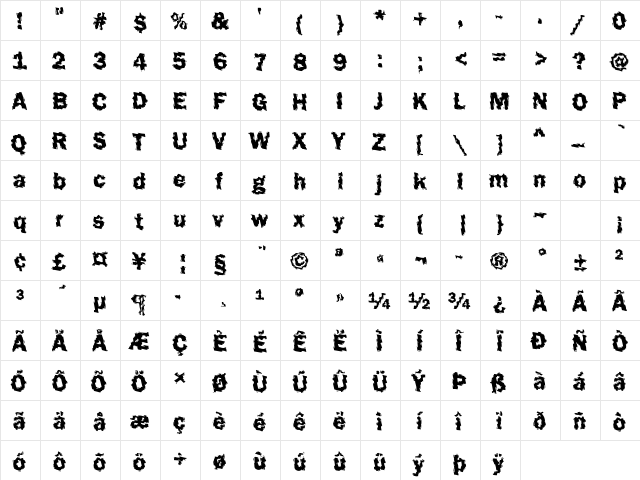
DTCFunkyM44 Regular Font Preview
DTCFunkyM44 Regular
DTCFunkyM44 Regular Font Details
Design Context for DTCFunkyM44 Typeface
DTCFunkyM44 has an approachable, lighthearted character — its loose, expressive forms are well-suited to children's content, casual branding, and fun-first design.
Font Pairing: Pairs well with a rounded or humanist sans for body copy, maintaining the friendly tone without relying on DTCFunkyM44 to carry extended reading.
Pro Tip: Use DTCFunkyM44 at larger display sizes where its expressive character can land. Pair with a clean, simple sans for body copy to maintain readability.